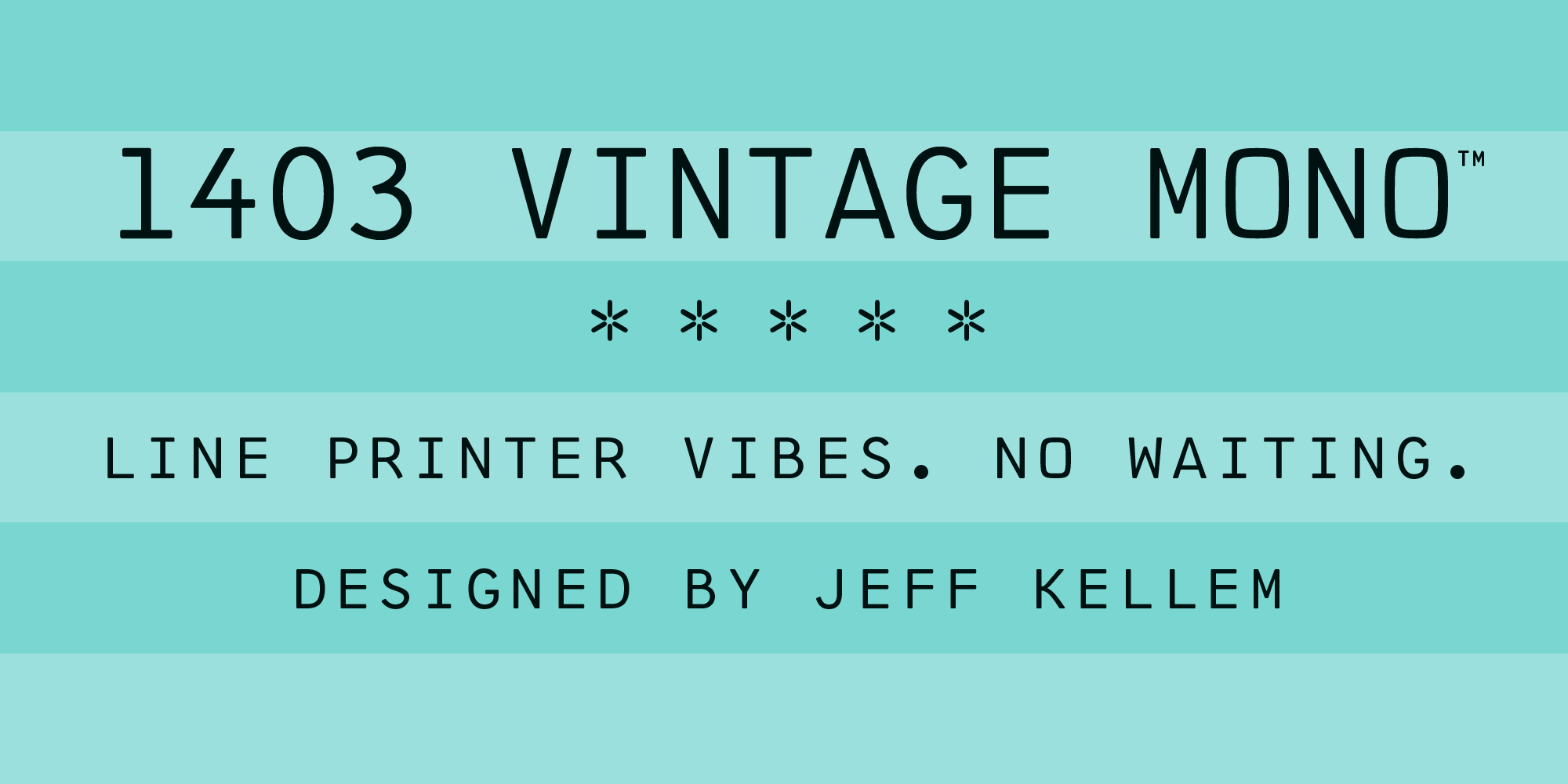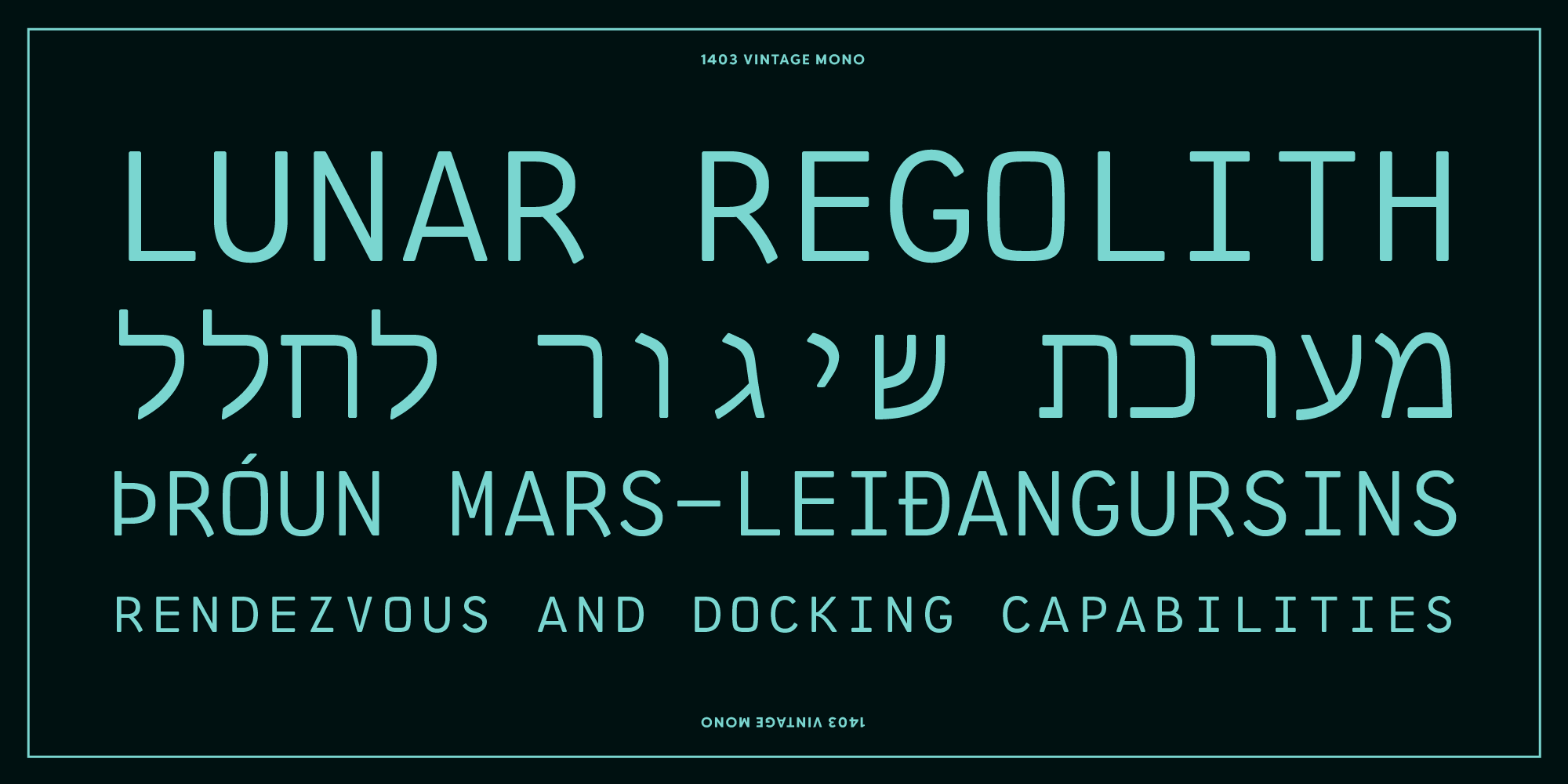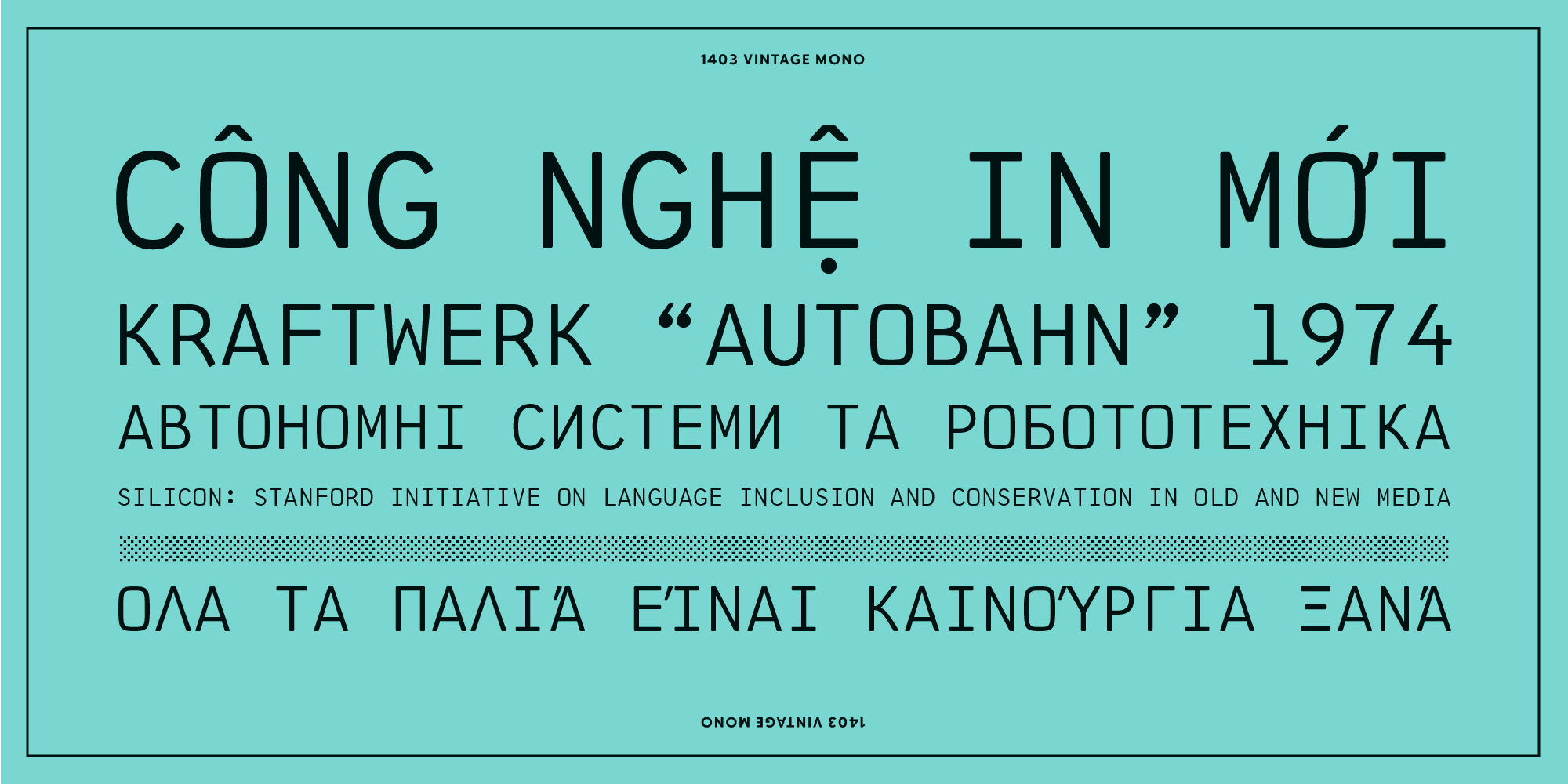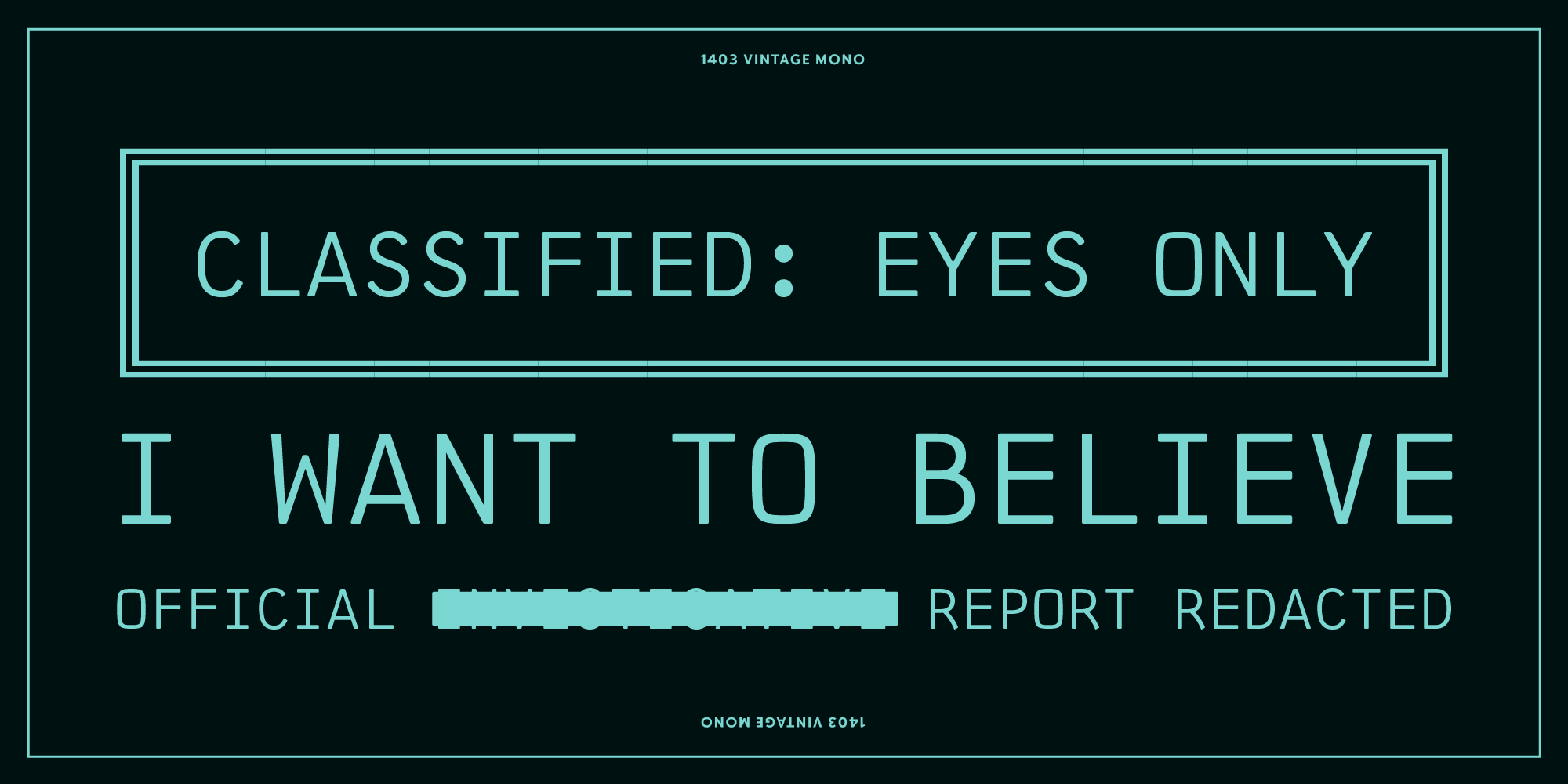
Hello 1403 Vintage Mono
1403 VINTAGE MONO — Line printer vibes. No waiting. — Designed by Jeff Kellem
Jeff Kellem and I met at TypeCon in 2013, where at one point he informally shared a type specimen of a work in progress, which would become “1403 Vintage Mono”. The typeface design immediately felt familiar (due to its origin — read on for more about that) and I admired how, over time, it has become perfectly positioned at the intersection of technology and science fiction, with a well-earned dash of nostalgia. The diligence and exactitude he was applying in expanding the glyph repertoire and the critical design adjustments he made were impressive. As one designer to another, I provided some feedback and encouraged him to keep moving forward with it. He did, and released it the following year.
Fast forward twelve years, when we met up (as we often do) at another conference — this time it was Face/Interface at Stanford — I proposed the idea of Delve Fonts becoming a distributor of 1403 Vintage Mono. After a few scheduling hiccups on my end (life happens) and some much-needed technical assistance from Jeff, it is a pleasure to announce 1403 Vintage Mono is now available here at Delve Fonts.
1403 Vintage Mono was inspired by the IBM 1403 mainframe line printer from the 1960s. When Jeff Kellem began his research for the project but printed samples were minimal, requiring a bit of guesswork for some shapes. He started with the basic 48 glyphs (26 letters, 10 digits, and 12 symbols) used on the 1403 ‘A’ chain. Mixing between the ‘A’ and ‘H’ chains, a few more characters were discovered (e.g.- a square lozenge symbol) and added to the font. Kellem also sourced several more glyphs from chains that had been modified to support Icelandic text.
In the early stages of design, the weight was heavier, slightly wider overall, and spacing was tighter. With rigorous proofing and testing of each iteration, Kellem made critical adjustments. What would become “1403 Vintage Mono Limited” now had the original 52 characters present in the printer, along with the basic complement of Latin characters and small capitals in place of lowercase characters. The completed font supports Unicode Latin-1 and Adobe Latin 2 sets.
Type specimens of 1403 Vintage Mono.
The “Pro” version of 1403 Vintage Mono has a much larger repertoire of glyphs — clocking in at 366 Latin alphabet based languages supported, including: Vietnamese, Catalan, Czech, and Polish. In addition, the Cyrillic, Greek, and Hebrew scripts are present, increasing support by 77 more languages.
Use 1403 Vintage Mono at display sizes on book and album covers, in film titles, and elsewhere to signal trust and accuracy.
A type specimen of 1403 Vintage Mono.
At text sizes, its monospaced quality means it is easy to set copy in columns and grids. It also lends a sense of authenticity and officialdom to indices, labels, and documents. •!•